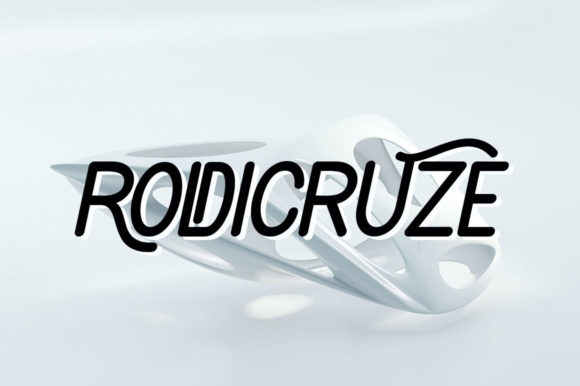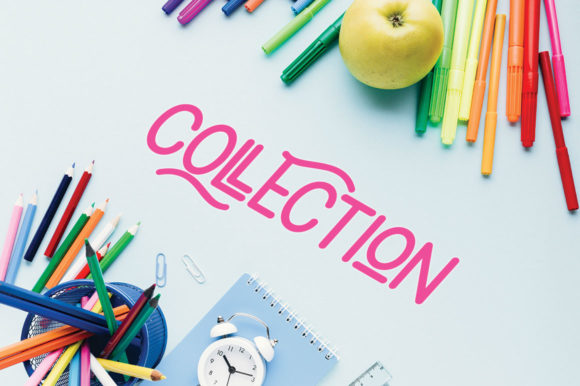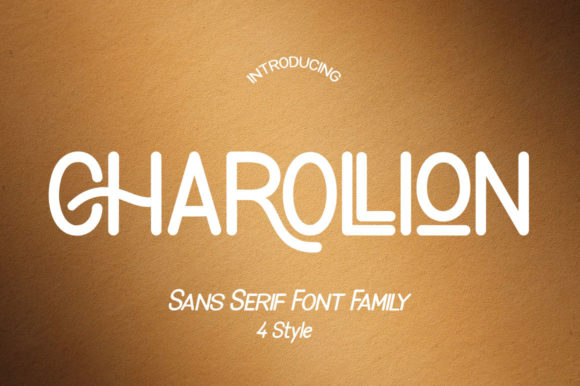
Discover the Elegance of Charollion Font: Elevate Your Designs with Versatility
In the world of typography, fonts play a crucial role in conveying messages, evoking emotions, and creating lasting impressions. For designers, crafters, and creative enthusiasts, finding the perfect font can be a game-changer. This is where Charollion Font comes into play – an elegant and adaptable sans serif font that can elevate any creation. In this article, we’ll dive into the features, benefits, and uses of Charollion Font, exploring how it can become an incredibly valuable asset in your font library.
The Charm of Charollion Font
Charollion Font is a stunning sans serif font that boasts elegance and versatility. Its clean lines, precise curves, and balanced structure make it perfect for a wide range of applications, from digital designs to print materials. Whether you’re working on a branding project, a website, or a crafting endeavor, Charollion Font can add a touch of sophistication and refinement.
One of the standout features of Charollion Font is its PUA (Private Use Area) encoding. This means that you can access all the glyphs and swashes with ease, giving you greater creative control and flexibility. With PUA encoding, you can effortlessly navigate through the font’s extensive character set, including alternates, ligatures, and decorative elements.
Charollion Font’s adaptability is one of its greatest strengths. This font can be used for various design projects, such as:
- Branding and Logos: Create memorable logos, business cards, and letterheads that exude professionalism and style.
- Digital Designs: Enhance your website, social media graphics, and email newsletters with a sophisticated and modern font.
- Print Materials: Use Charollion Font for brochures, flyers, posters, and other print materials that require a touch of elegance.
- Crafting and DIY Projects: Add a personal touch to your handmade crafts, such as journals, planners, and gift tags.
Why Choose Charollion Font?
With so many fonts available, why choose Charollion Font? Here are a few compelling reasons:
- Unique and Versatile: Charollion Font offers a distinctive yet adaptable design that can be used across various projects.
- Elegant and Sophisticated: This font exudes refinement and poise, making it perfect for designs that require a touch of luxury.
- Easy to Use: With PUA encoding, you can easily access and use the font’s extensive character set.
- High-Quality: Charollion Font is designed to deliver exceptional results, ensuring crisp and clear rendering across different devices and platforms.
Tips for Using Charollion Font
To get the most out of Charollion Font, here are some tips to keep in mind:
- Experiment with Swashes and Glyphs: Take advantage of the font’s PUA encoding to explore different swashes and glyphs, adding a personal touch to your designs.
- Mix and Match: Combine Charollion Font with other fonts to create unique and visually appealing typography.
- Adjust Font Sizes and Weights: Play with different font sizes and weights to add hierarchy and emphasis to your designs.
Charollion Font is an exceptional addition to any font library, offering elegance, versatility, and ease of use. Whether you’re a designer, crafter, or creative enthusiast, this font can help elevate your designs and take your projects to the next level. With its PUA encoding, extensive character set, and high-quality design, Charollion Font is sure to become a go-to choice for a wide range of applications.